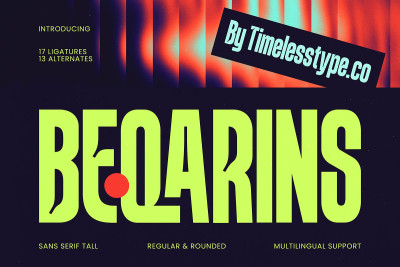
Beqarins Sans Serif Tall Font
Beqarins Sans Serif Tall is a professional-grade typeface designed to elevate branding, editorial, and identity projects.